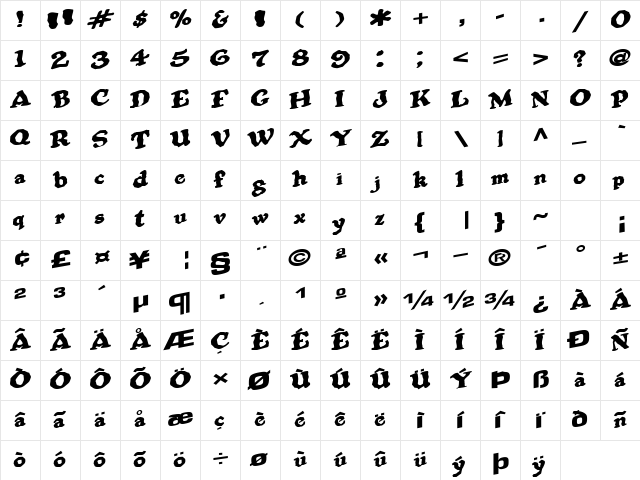
Make Regular
Design Context for Make Typeface
Make is a composed and adaptable typeface that performs quietly and consistently across a wide range of design contexts.
Pro Tip: Use Make in both headline and body roles to test its range before committing to a single application.